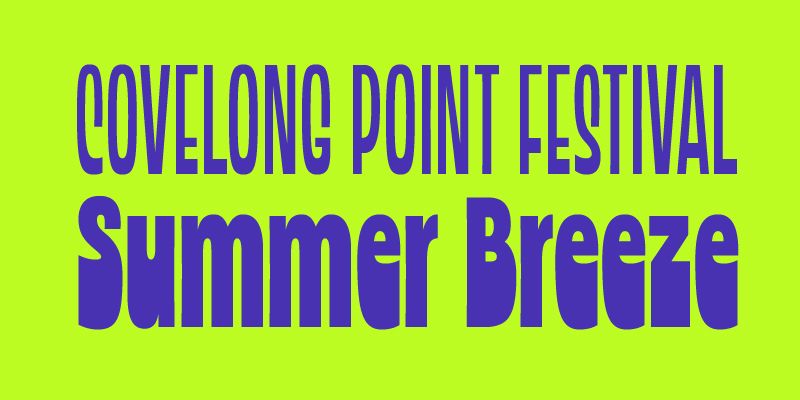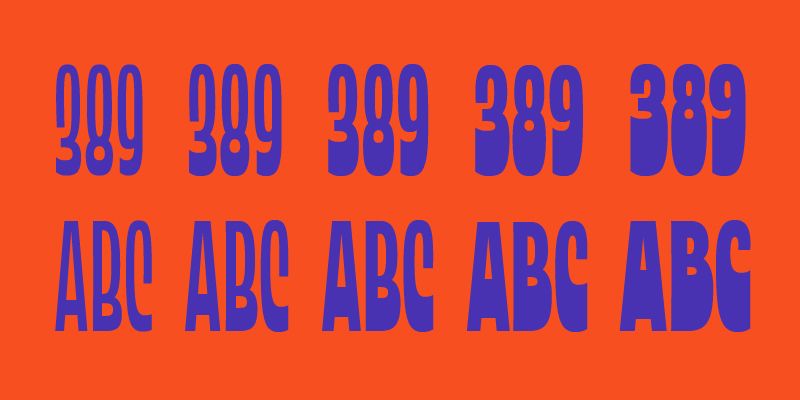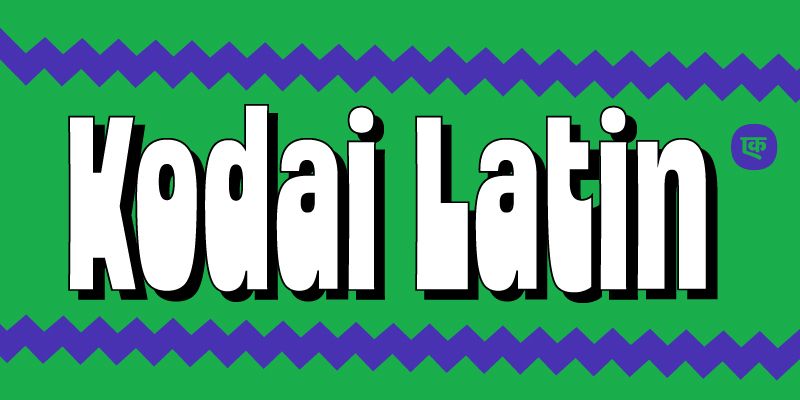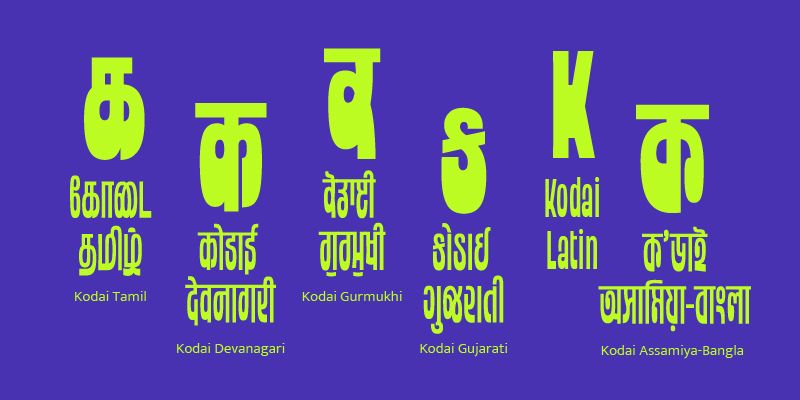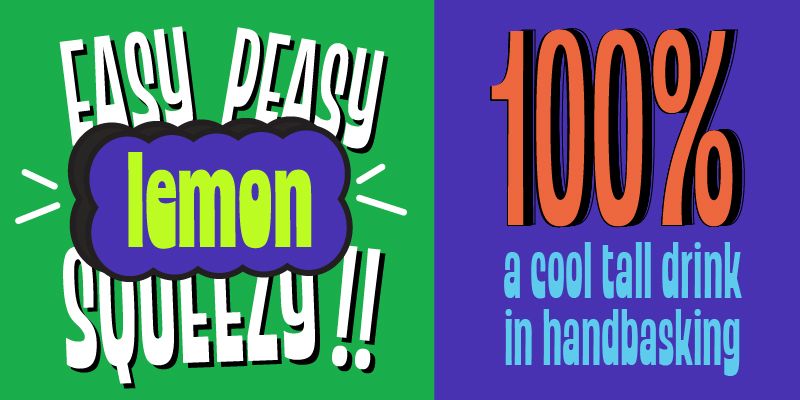
Kodai is a multi-script display typeface with a fun, summery vibe. It is narrow and bottom heavy — a cool, tall drink with a sharp bite. It has a variable weight axis ranging from Black, which is crisp and juicy, to Regular, which squeezes out the weight, but not its spirit or freshness. Its bold and jovial personality would work well in titles for posters and publications, and be a great fit for brand identities, packaging for entertainment, food, music or games.